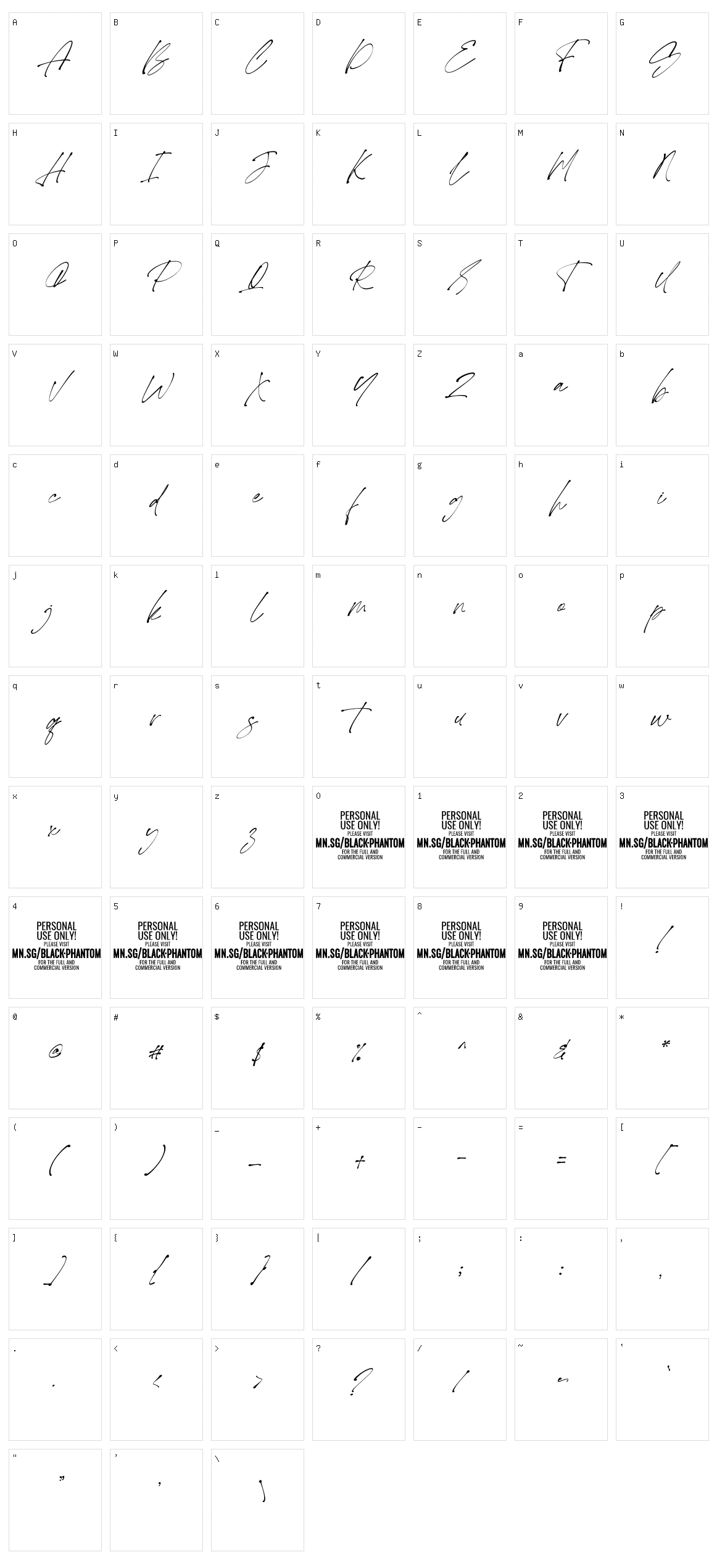
Black Phantom is a vivid handwriting typeface.
With wild and active strokes, this calligraphic lettering gives your graphic life and character.
Use the script in a modern logotype, for a signature graphic, or for an inspiring quote.
Black Phantom comes in two styles: Upright and Italic.
The font is built with advanced OpenType functionality and has a guaranteed top-notch quality, containing stylistic and contextual alternates, ligatures and more features; all to give you full control and customizability.
It has extensive lingual support, covering all Latin-based languages, from North Europe to South Africa, from America to South-East Asia.
It contains all characters and symbols you'll ever need, including all punctuation and numbers.